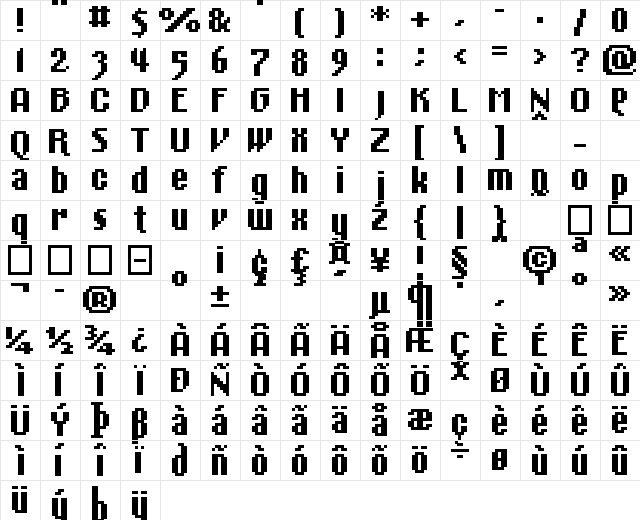
01Cinematix Bold Font Preview
01Cinematix Bold
01Cinematix Bold Font Details
Design Context for 01Cinematix Typeface
01Cinematix is a composed and adaptable typeface that performs quietly and consistently across a wide range of design contexts. The heavy weight commands attention and anchors typographic hierarchies.